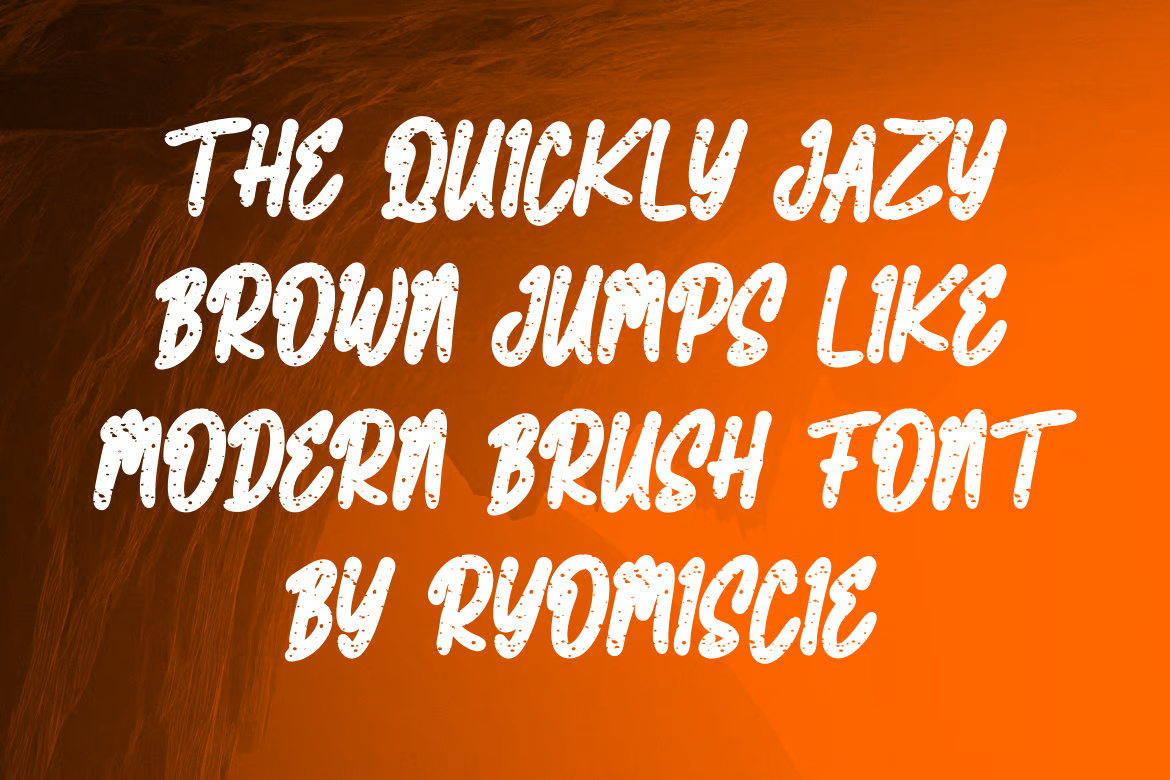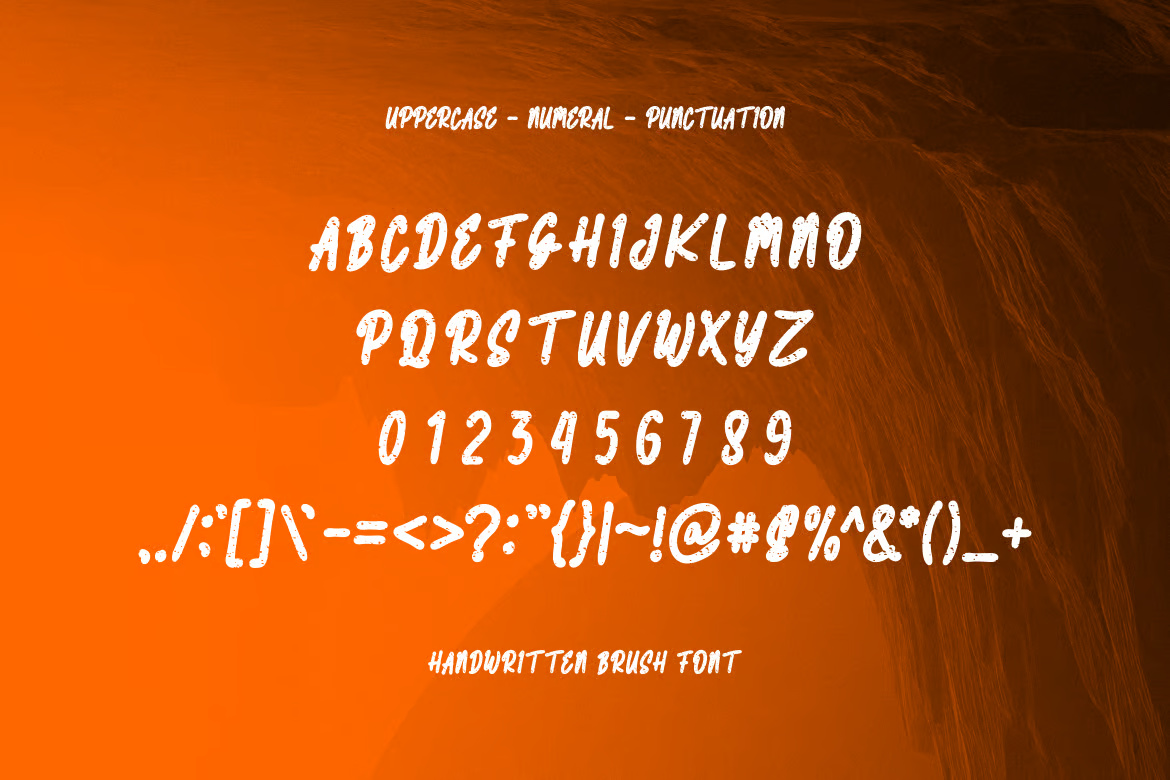
Groovy Blank Handwritten Brush Font
Groovy Blank Font – Modern Font is a bold and authentic display typeface that brings a stylish and dynamic touch to any design. Its eye-catching curves and strong presence make it perfect for branding projects such as logos, t-shirt printing, esports graphics, posters, and more. Whether used for digital or print designs, this font stands out in a wide range of creative contexts.
Groovy Blank Handwritten Bold Brush Font
Groovy Blank - Handwritten Brush Font